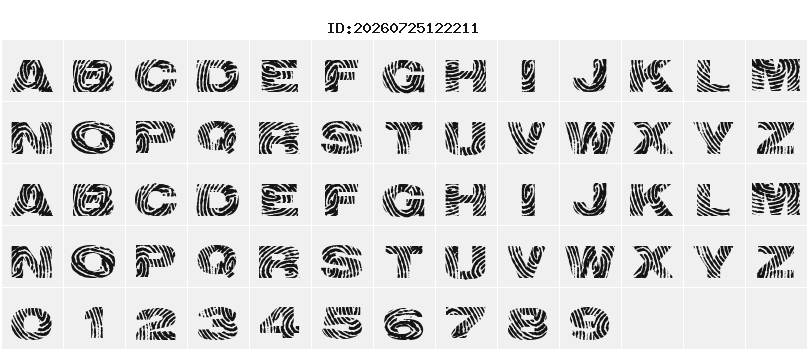
• Font Name: identify
• Font ID: identify:Version 1.00
• Full Font Name: identify
• Version: Version 1.00 March 22, 2012, initial release
• PostScript Name: identify
• Character Count: 63
• Designer: max infeld
• Manufacturer: xerographer.com
• Description: made at empire coffee in chico
identify.ttf is a modern, elegant sans-serif font designed for ultimate readability and visual harmony. Perfect for branding, headlines, web design, and print materials.